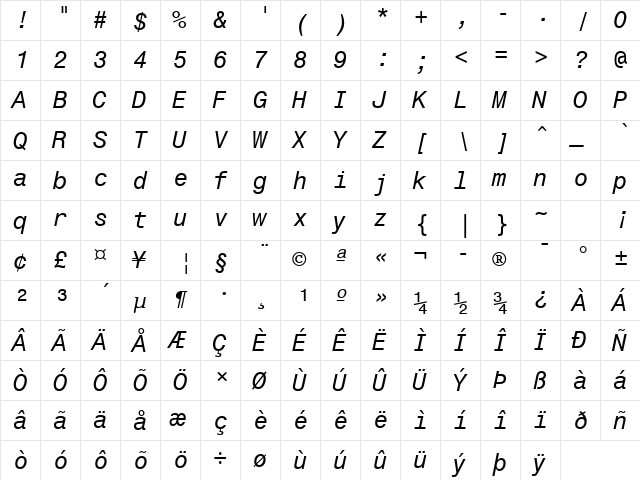
Monospac821 BT Italic Font Preview
Monospac821 BT Italic
Design Context for Monospac821 BT Typeface
Monospac821 BT uses fixed-width spacing throughout, giving it the structured, systematic character associated with coding environments and technical documentation. Its italic angle brings a sense of urgency and motion to the letterforms.
Pro Tip: Pair Monospac821 BT with a proportional sans for UI contexts where code-style labels and regular body copy need to coexist.